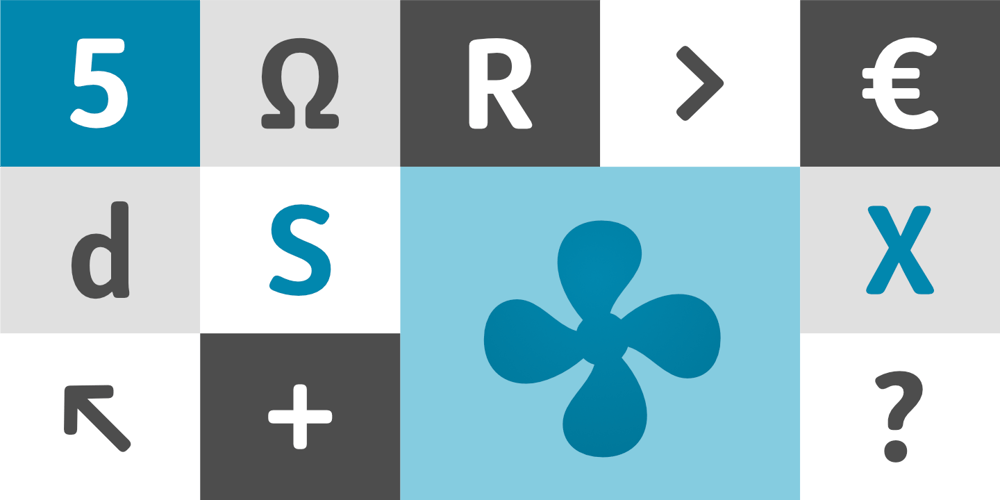
Submariner R24 Font Family was designed by Marin Santic and published by Type Fleet. Submariner R24 contains 20 styles and family package options. Submariner R24diving sans serif experienceSubmariner R24 is a modification of the Submariner type family. It still holds pleasant humanistic construction, but now the letters are easier. Rounded corners enhance the typeface’s sophistication and broaden its usability. It is a remarkable typographic discovery.The letter construction is more open and the corners are rounded. It is suitable for longer texts, information graphics, signalization, headers and decoration. The typeface’s x-height is exactly 70% of its capitals. The italics are designed at a 9° angle.